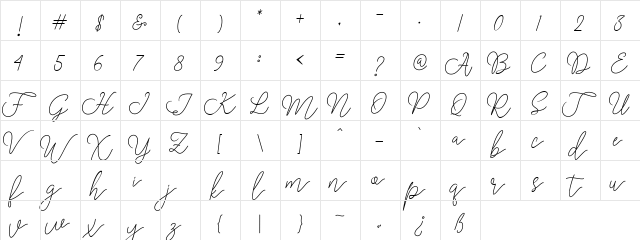
Rangga Script Regular
| Foundry | WDfont |
| Designer | Captain Jack |
Design Context for Rangga Script Typeface
Rangga Script brings a calligraphic fluidity to the page — its connecting strokes and expressive curves give it an unmistakably human quality.